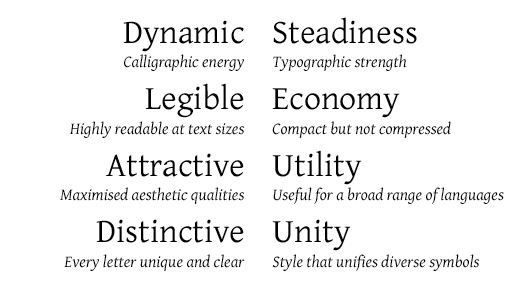
Gentium - Design
Gentium is a typeface family designed to enable the diverse ethnic groups around the world who use the Latin, Cyrillic, and Greek scripts to produce readable, high-quality publications. It supports a wide range of Latin- and Cyrillic-based alphabets.
The design is intended to be highly readable, reasonably compact, and visually attractive. The additional ‘extended’ Latin letters are designed to naturally harmonize with the traditional 26 ones. Diacritics are treated with careful thought and attention to their use. Gentium Plus also supports both polytonic and monotonic Greek.
Type Samples
Gentium has been designed to balance the need for a compact, legible typeface with the need for an attractive, friendly one. The overall tensions that influenced the design are summarized by the following table:
Gentium design balance
Balancing forces in the design of Gentium
For full details on the unique design characteristics of Gentium, download the 20-page type specimen: Gentium Type Specimen (A5 format). This publication was prepared for the University of Reading and was distributed to all attendees of the ATypI conference in Rome, September 2002. It also includes examples of the glyph set supported by Gentium and shows it in use for a variety of settings (Regular/Italic, Latin/Greek, Prose/Poetry, Display/Text).
A document showing Polytonic, Monotonic and mixed Latin with Greek is demonstrated in the following specimen: Gentium Greek Specimen.